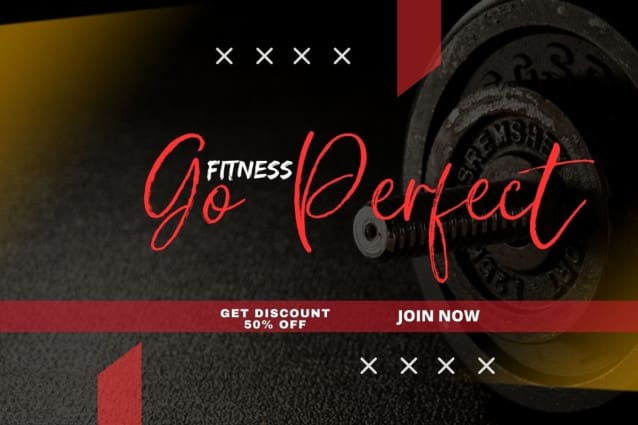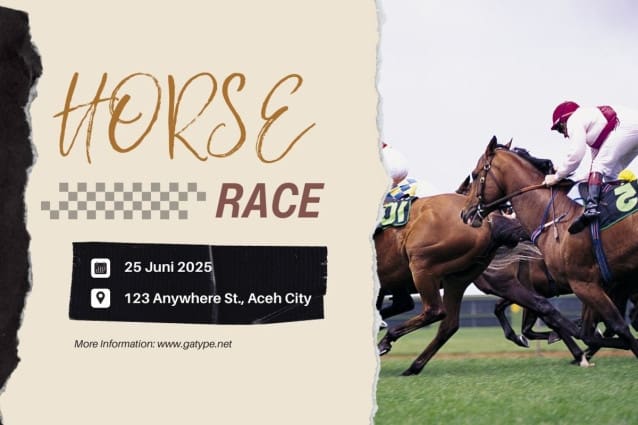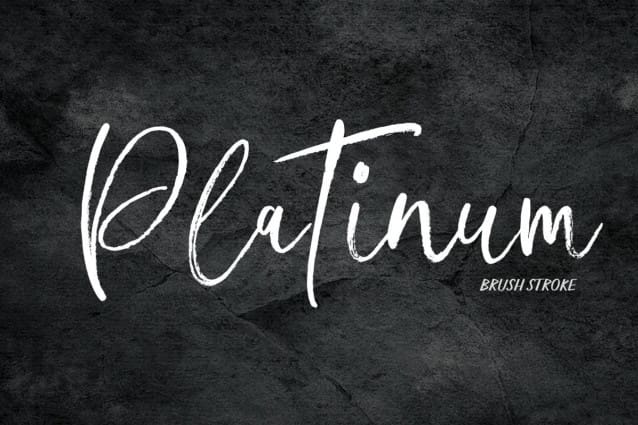
Platinum Brush Font
Platinum Brush Font is a brush-style typeface characterized by bold, natural brush strokes. Its letters have an organic shape with varying thickness, reminiscent of hand-painted calligraphy. This style gives a casual yet artistic feel, often used in designs that need a personal, creative, and bold touch, such as posters, greeting cards, or modern and edgy branding elements.